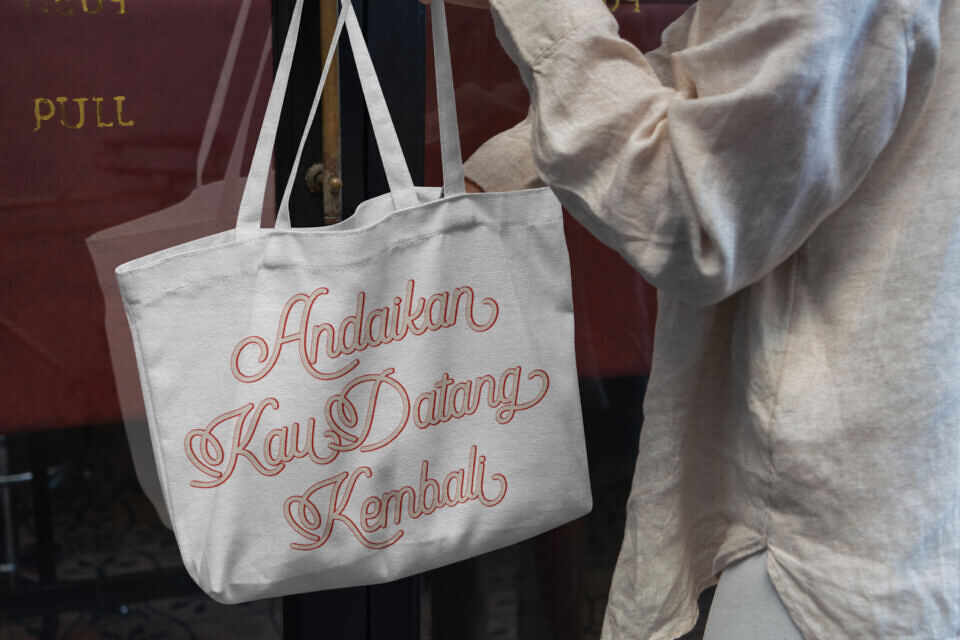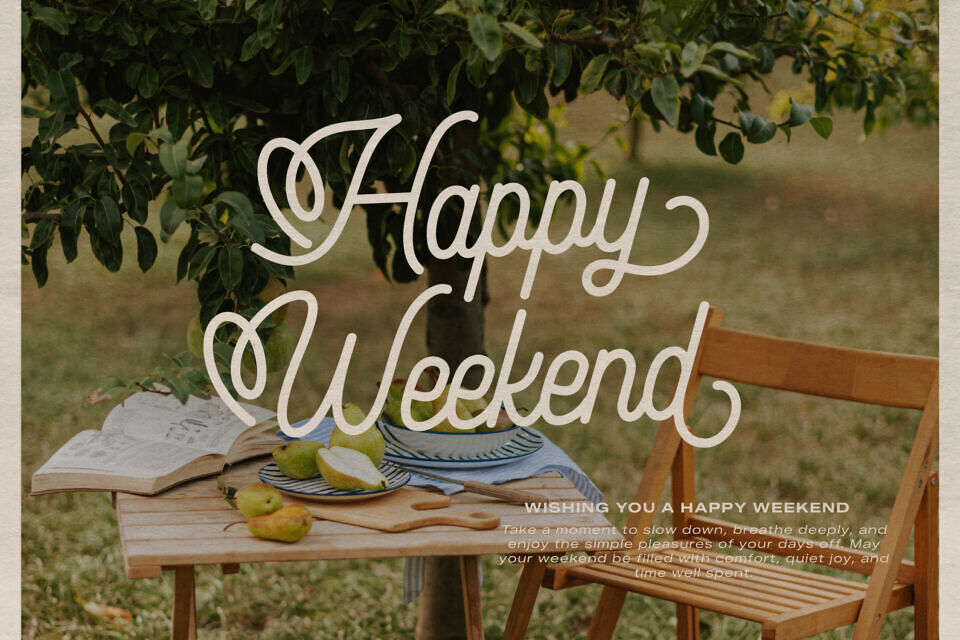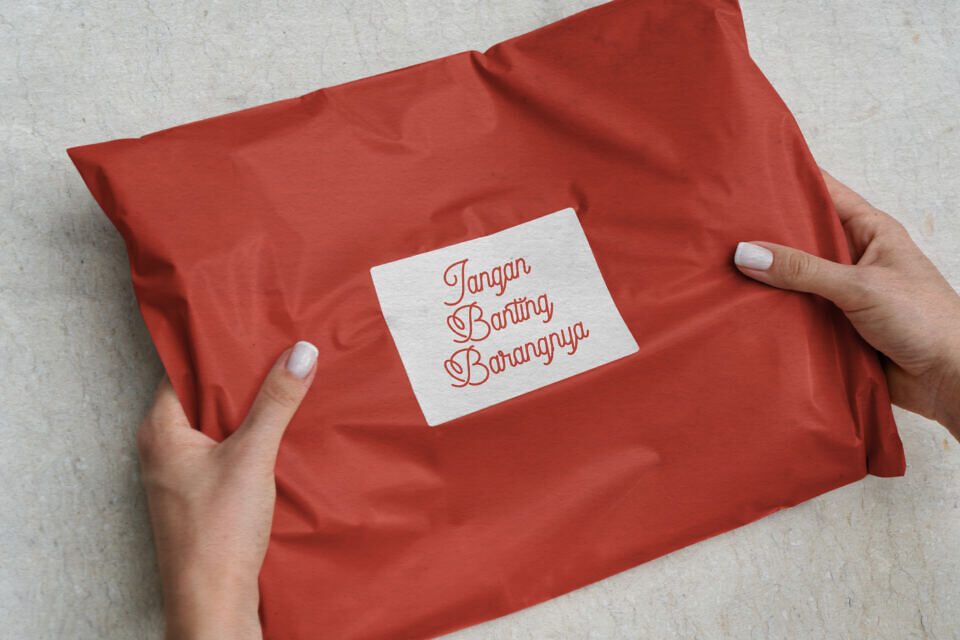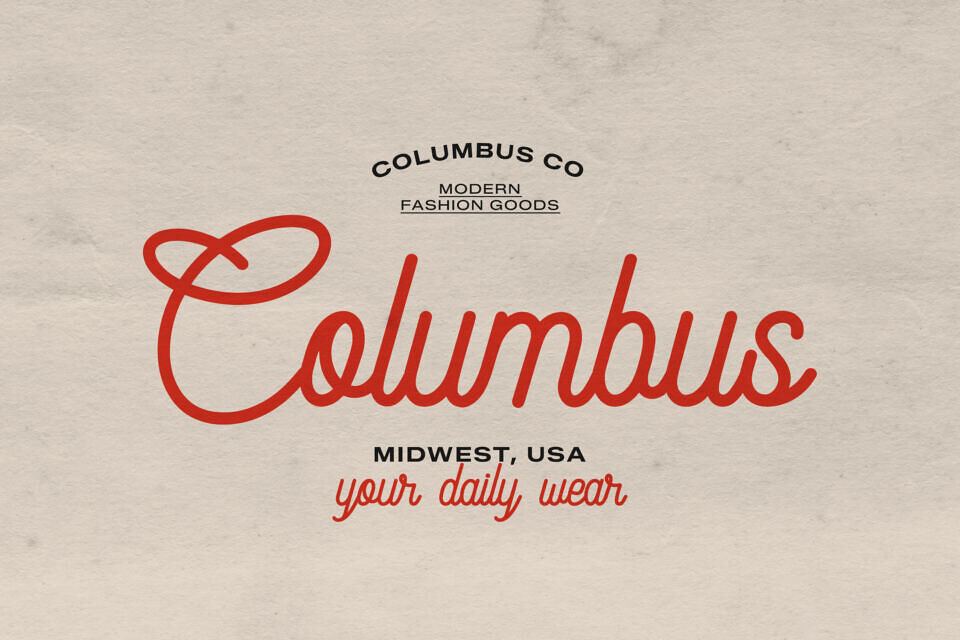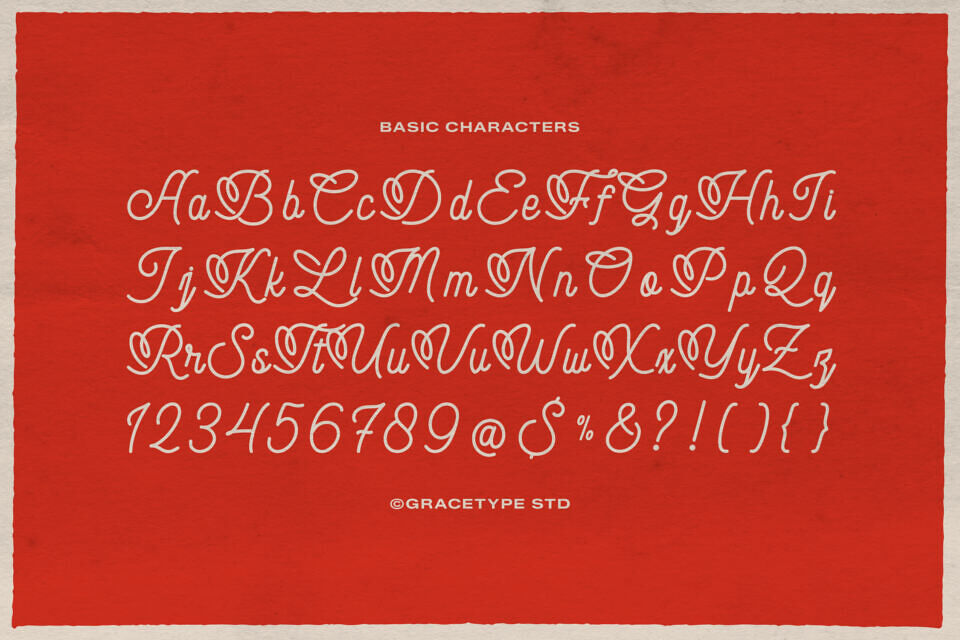
Audley Ipswitch is a charming monoline script that celebrates the art of retro signage and vintage Americana.
The font is built with a consistent stroke weight and beautiful, interconnected loops that create a friendly and nostalgic rhythm. As a classic Audley Ipswitch typeface, it is perfectly suited for craft beer labels, cafe branding, and outdoor-inspired merchandise.